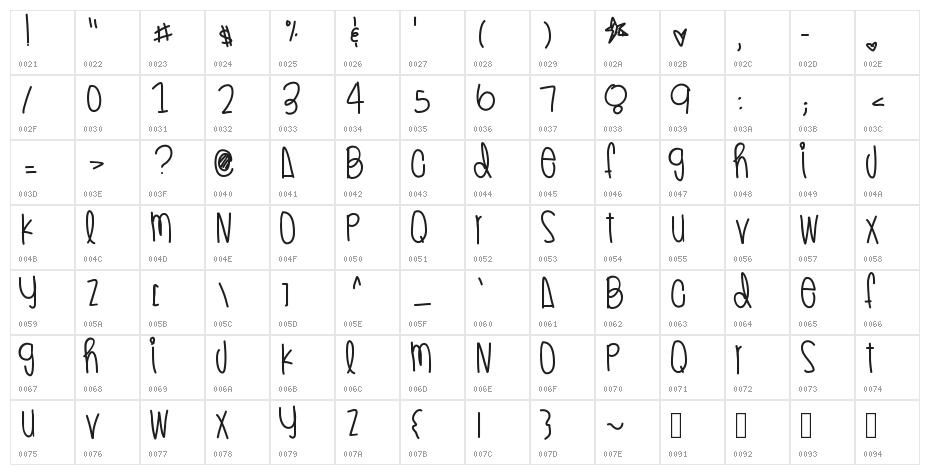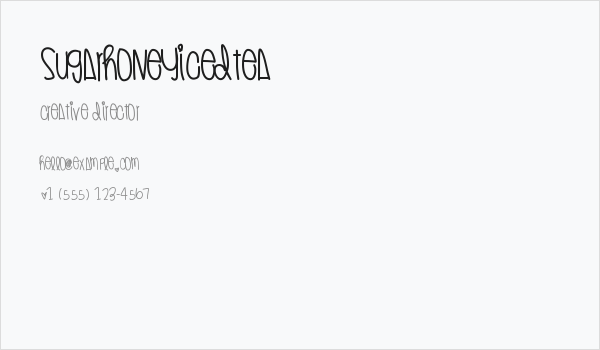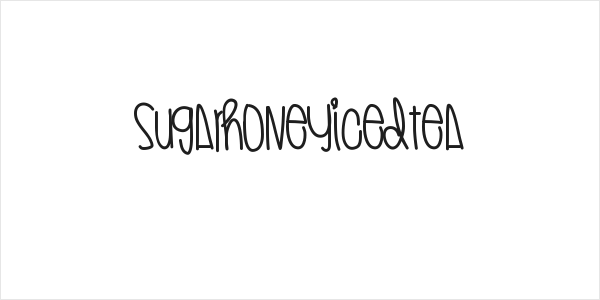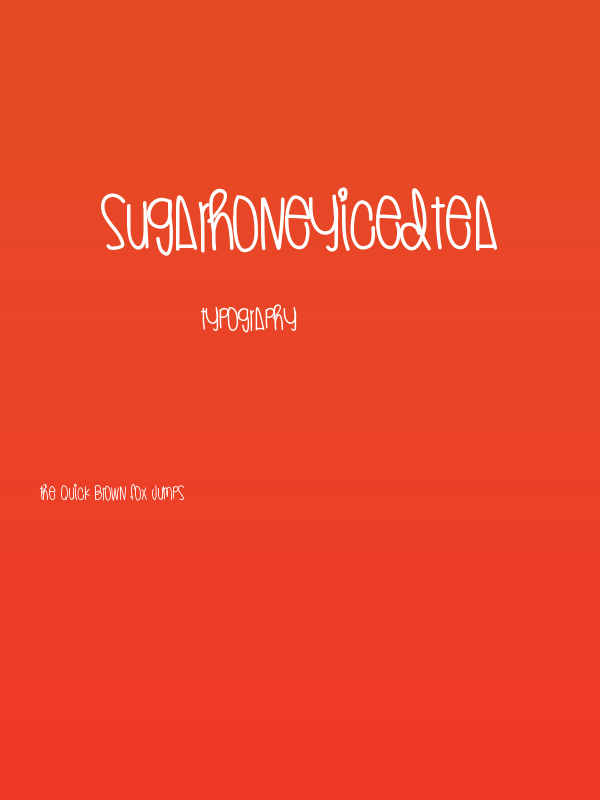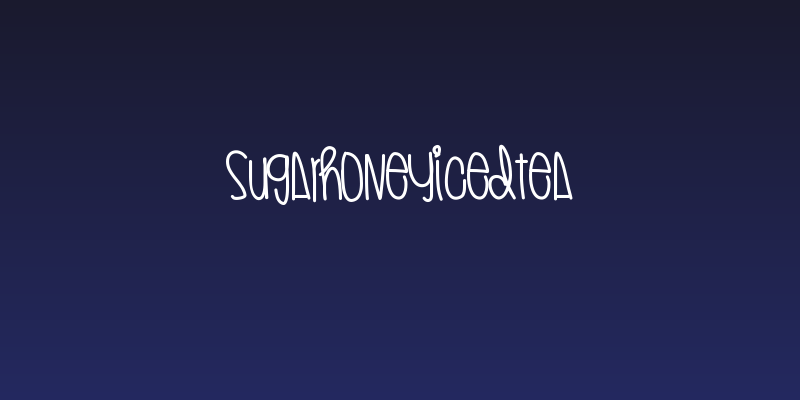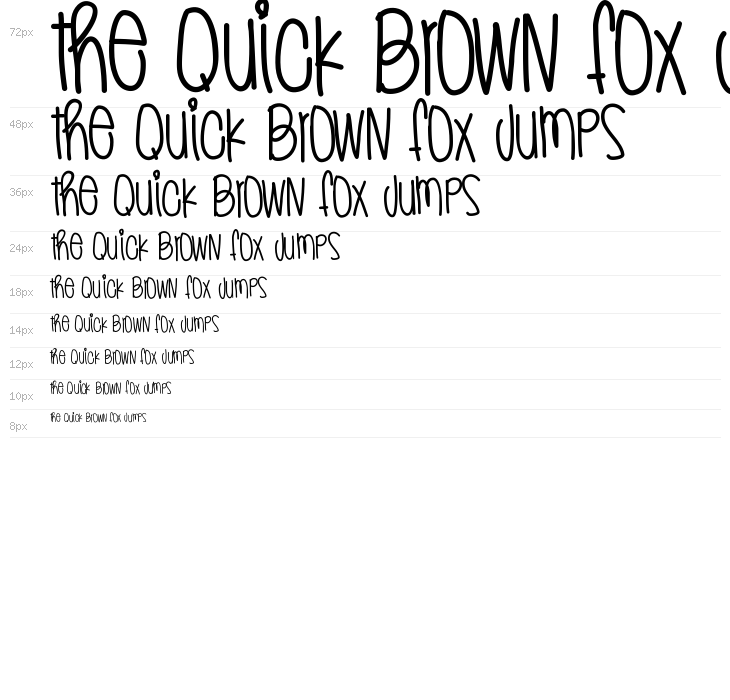
SugarHoneyIcedTea Font
SugarHoneyIcedTea Description
This font features a playful and casual handwritten style, characterized by its tall, narrow letters and slightly irregular lines that give it a whimsical and informal appearance. The uppercase and lowercase letters maintain a consistent height, with rounded edges and a smooth flow that enhances its approachable feel. Numbers and special characters are crafted with the same playful touch, making them blend seamlessly with the alphabet. The font's overall look is friendly and inviting, suitable for projects that require a personal touch.
| Proposed Projects | Ideal for greeting cards, children's books, playful branding, and casual invitations. |